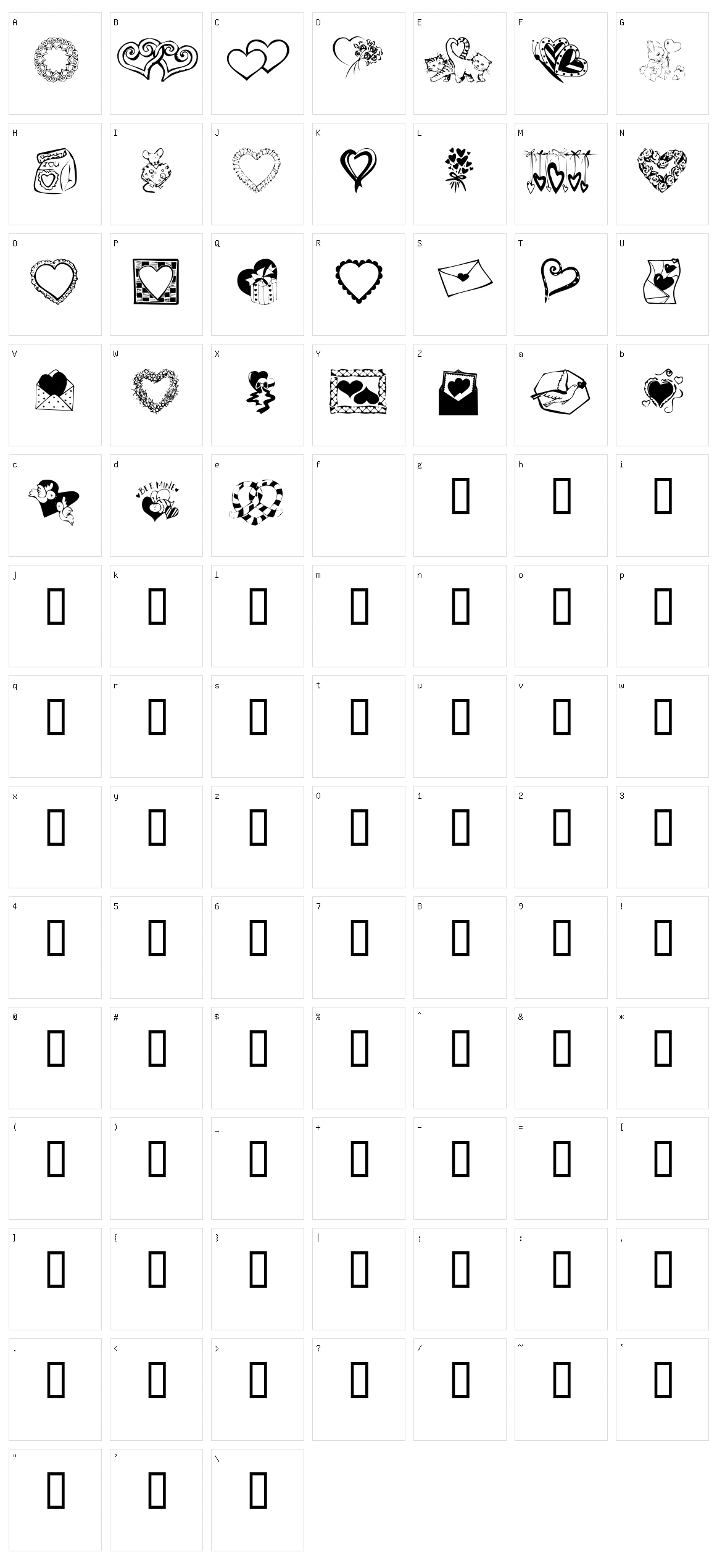
The free font KR Kat's Got A New Valentine is carefully designed by Katz Fontz, showcasing a thoughtful balance of creativity and usability and falls under the Valentine font style. When you download the ZIP file, it contains only 43.79 KB of font files, making it lightweight and quick to download. Please review the license details below to understand permitted usage and distribution rights. If license information is not available, we recommend using this font for personal projects only or contacting the author directly for commercial usage permissions.